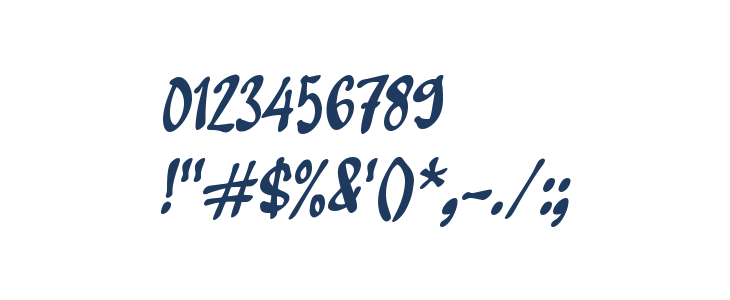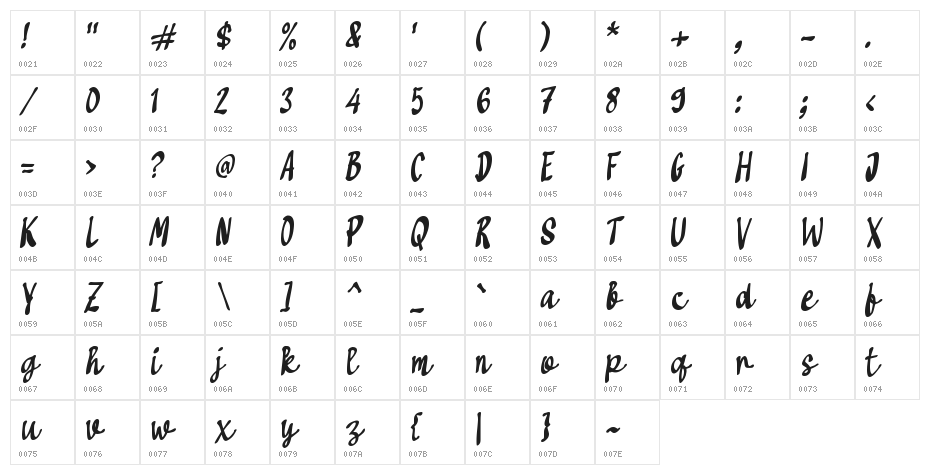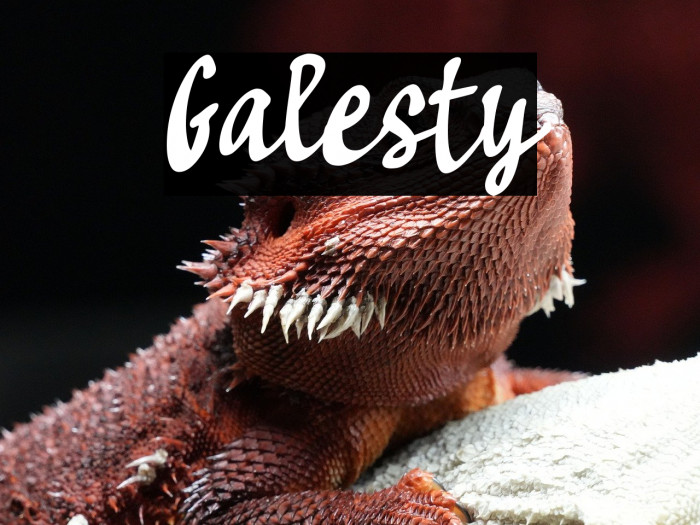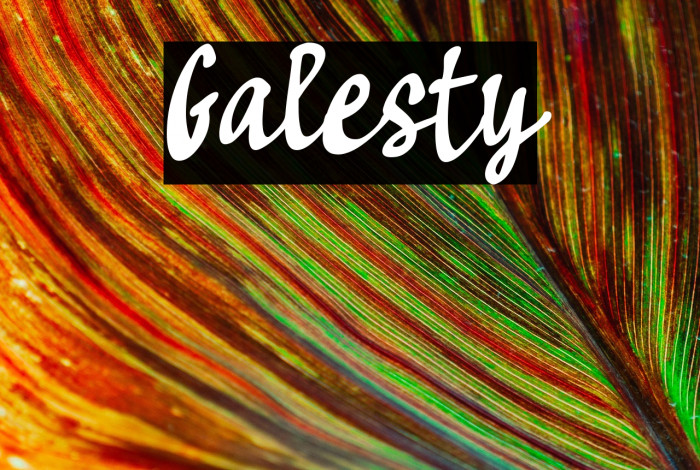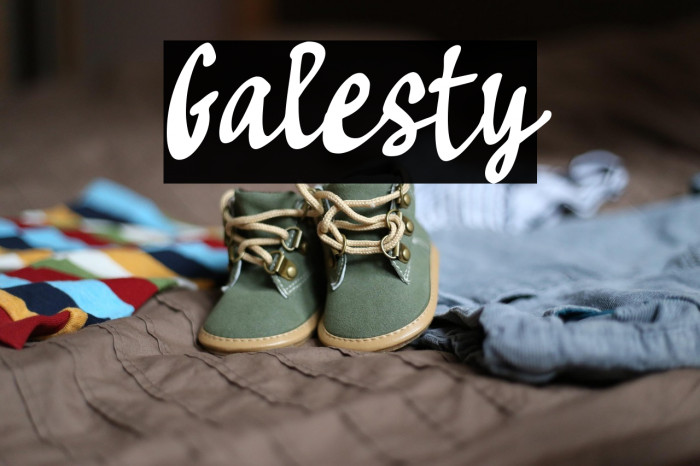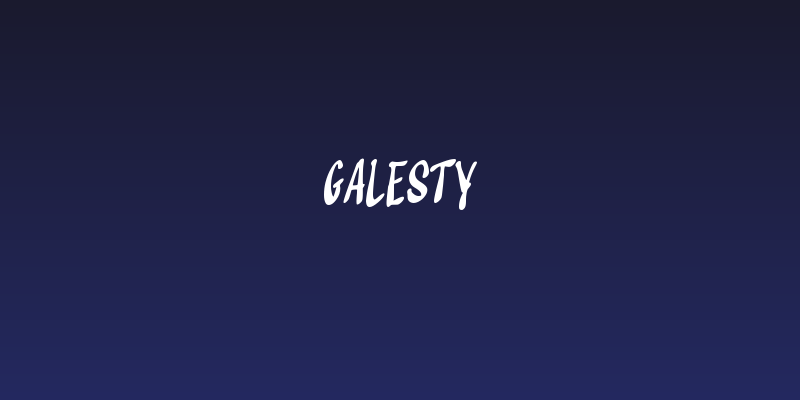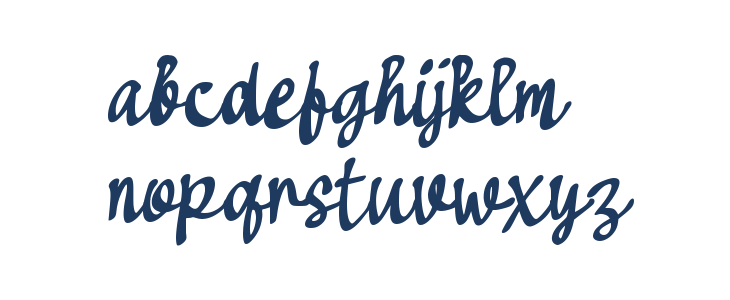
Galesty Font
Galesty Description
This font features a bold, handwritten style with a playful and energetic feel. The letters are slightly slanted, giving a sense of movement and fluidity. The strokes are thick and consistent, creating a strong visual impact. The uppercase and lowercase letters maintain a cohesive look, while the numbers and special characters are designed to match the overall aesthetic. This font is ideal for projects that require a personal touch or a casual, friendly vibe. Its unique style makes it stand out, making it suitable for creative and artistic applications.
| Use Case | Logos, Headlines, Posters |
| Proposed Projects | Ideal for greeting cards, posters, branding, and social media graphics. |